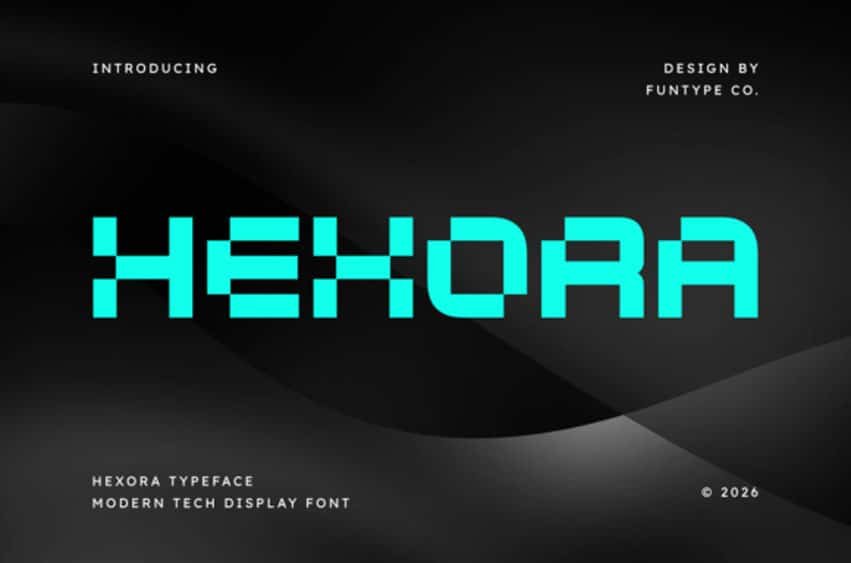
Hexora Font is a modular, robust, and beautifully stylized modern tech display font tailored for precise, high-impact branding and commercial craft design.
Showcasing a pixelated geometric block structure, heavy weights, and clean digital silhouettes with sharp technical cuts, this typeface is exceptionally qualified for commanding headlines, aggressive urban streetwear clothing lines, custom vehicle vinyl decals, esports team logo designs, activewear branding, and bold promotional posters. Its authoritative, wide, and perfectly balanced presentation infuses screen prints, physical merchandise layouts, and custom crafting projects with an advanced, cutting-edge fashion and high-tech lifestyle finish.